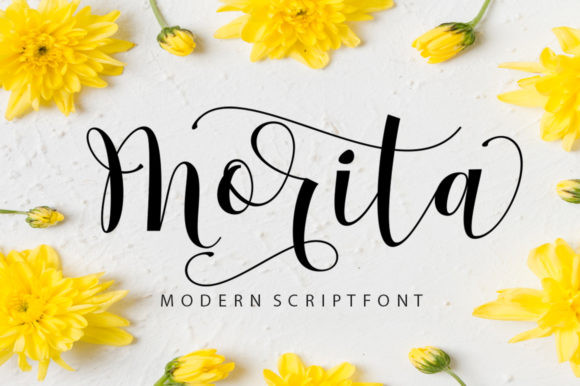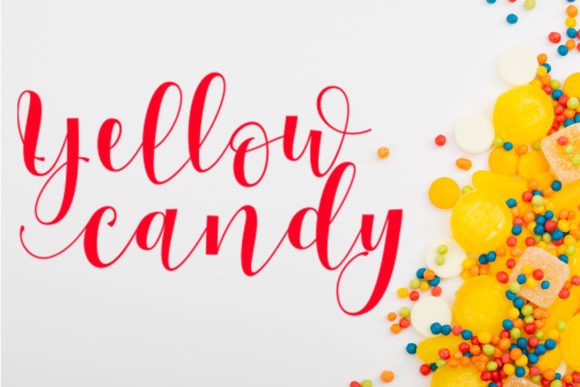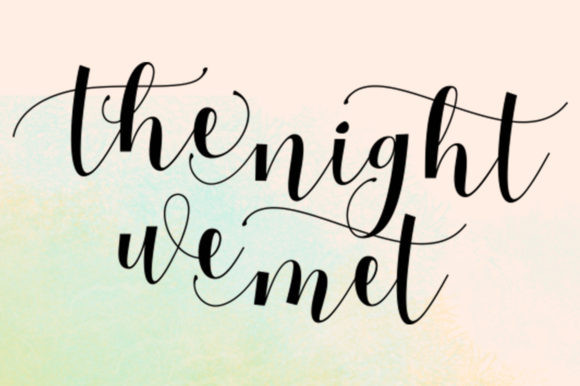
Morita Font
Morita is a magical handwritten font carefully created with a touch of elegance. This font is PUA encoded which means you can access all of the amazing glyphs and swashes with ease!